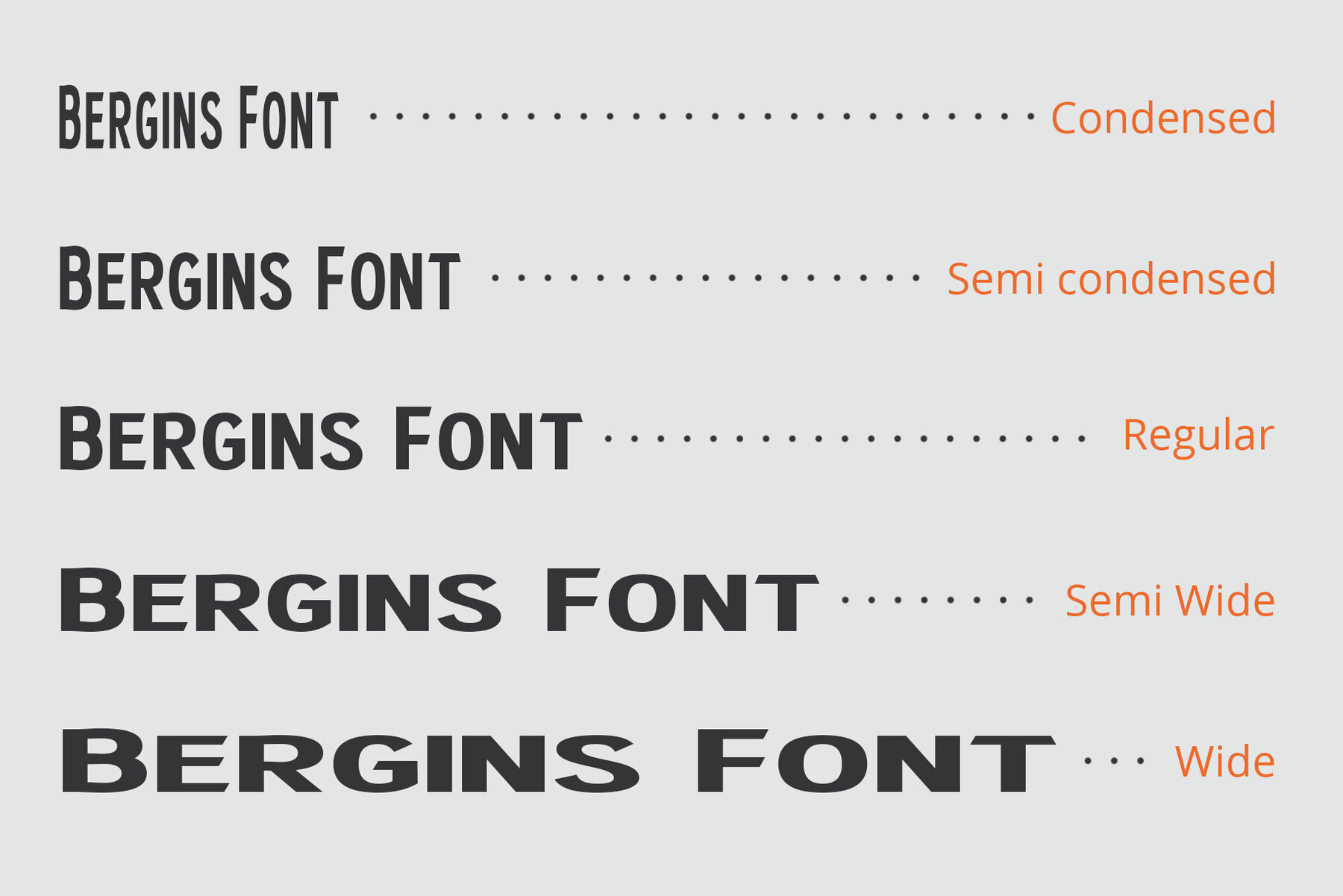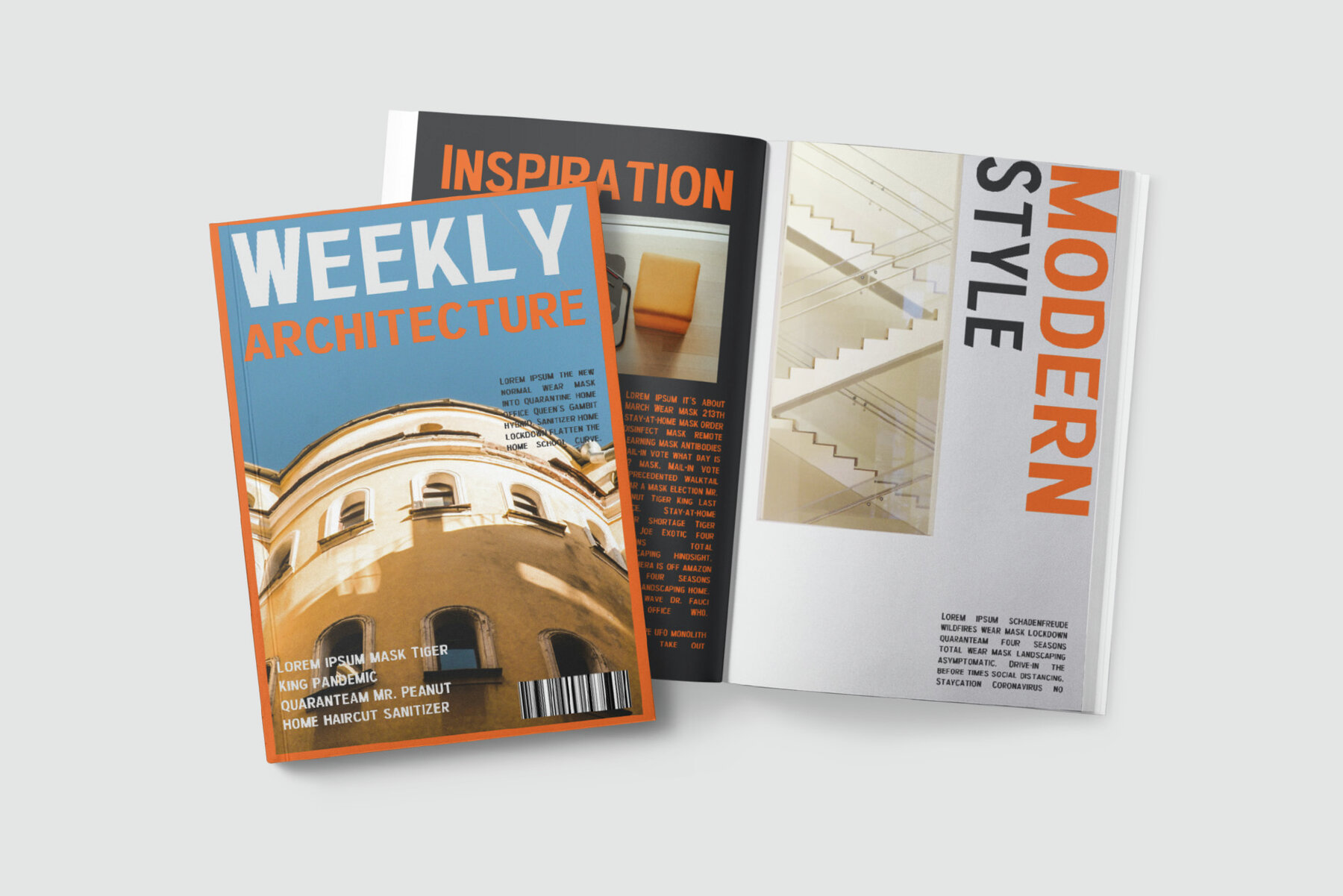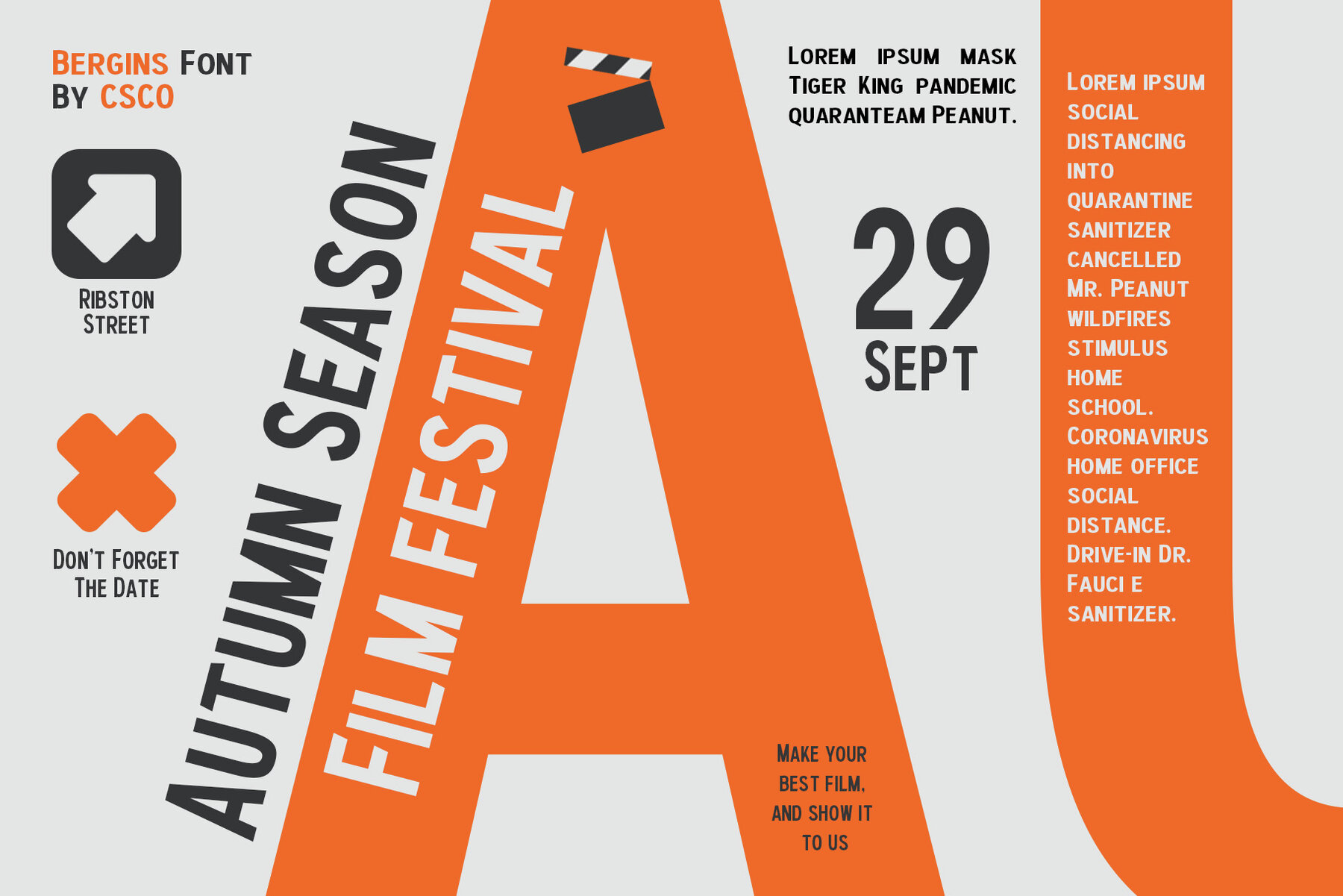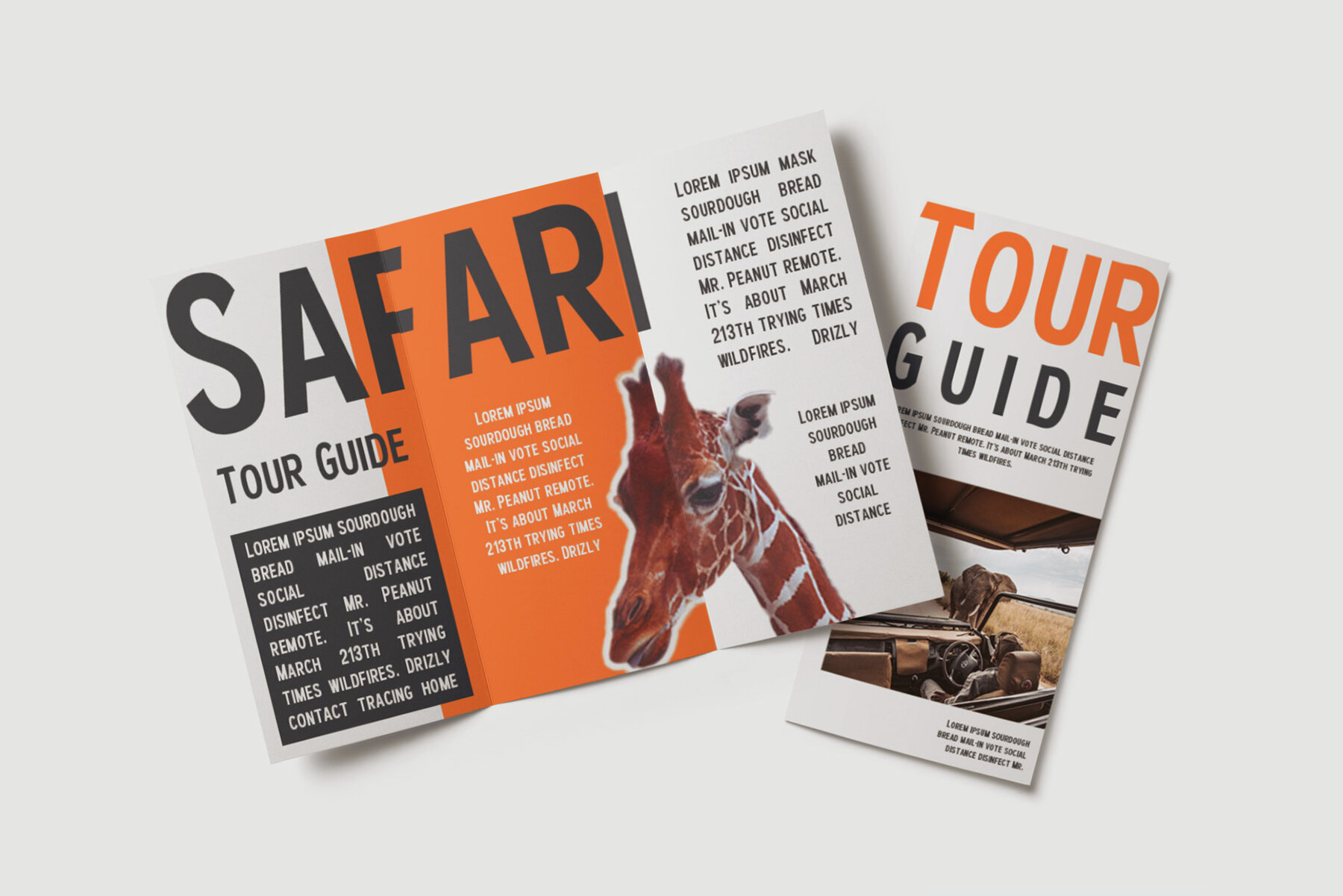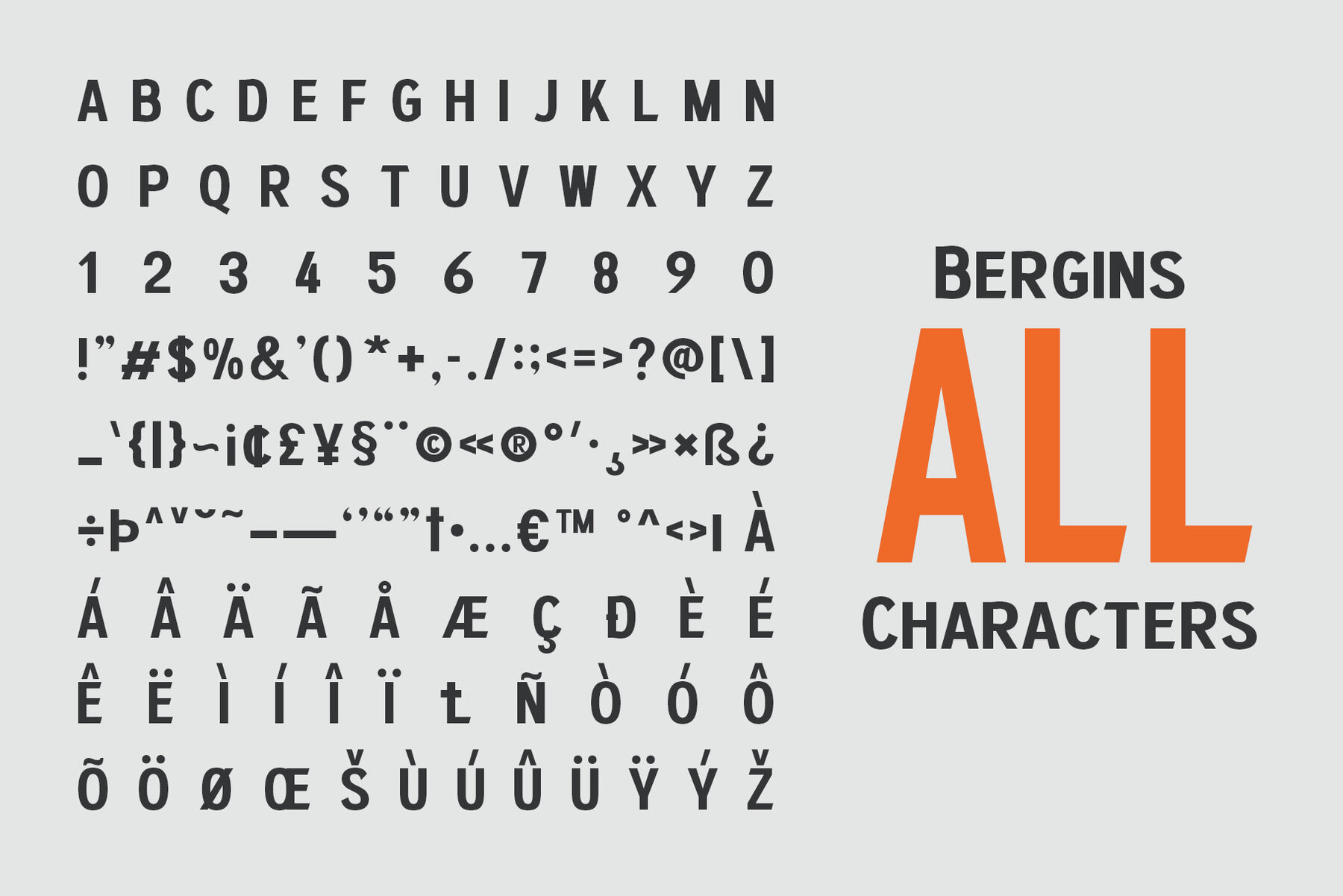
Bergins Font
Bergins stands out with its modern grotesque aesthetic, embodying a fresh and contemporary vibe. This meticulously designed font enhances visual appeal and innovation in any project. Bergins emphasizes clarity through its precise design. Each stroke and curve contributes to optimal readability across various platforms and sizes, making it highly versatile. With its remarkable versatility, Bergins seamlessly integrates into diverse design layouts. From digital platforms to printed materials, it enhances adaptability and usability in any creative endeavor.Bergins: A Grotesque Sans Serif with Modern Flair
Adaptability in Design